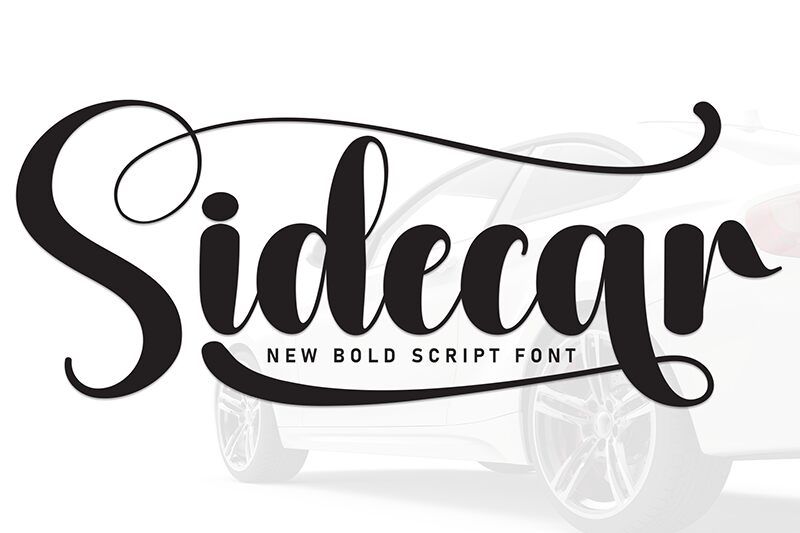
Sidecar
Sidecar font by Scratchones is an elegant calligraphy style that evokes a sense of sophistication and grace. With its flowing curves and classic script appeal, this font seamlessly blends historic calligraphic inspirations with a modern touch. Essential in establishing a sophisticated mood, its refined design suits both traditional and contemporary settings, providing versatility without compromising elegance.